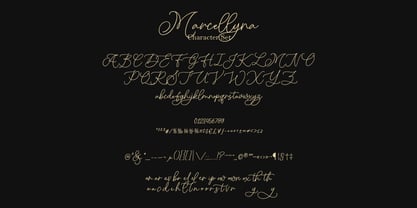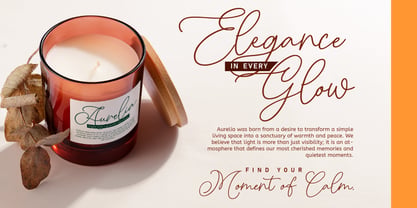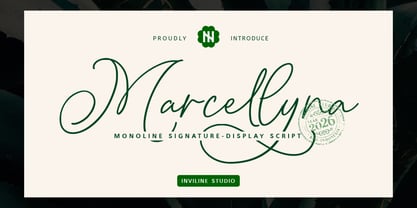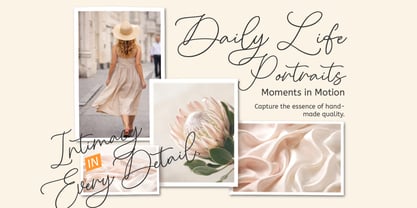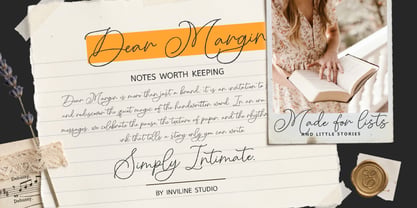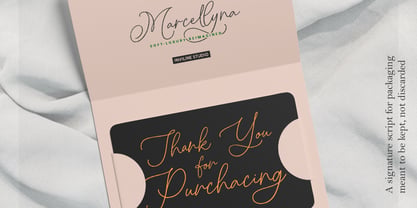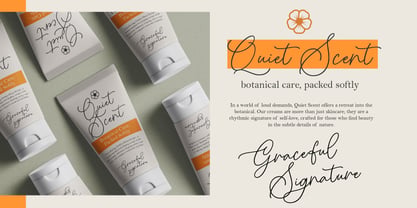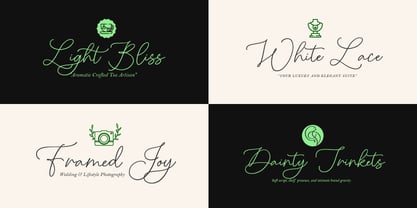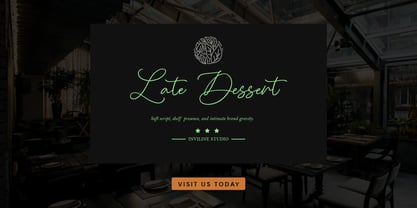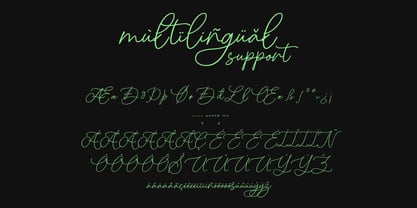
Marcellyna
by Inviline
The Marcellyna Font Family was designed by Virgiawan Listanto and published by Inviline. Marcellyna contains 1 styles. More about this family
Marcellyna marks a return to intimacy in branding. Designed by Inviline Studio, this monoline signature-display script was born from the philosophy that soft-luxury begins when a design feels truly personal. Its consistent weight and connected rhythm capture the essence of a handwritten note worth keeping.
In an era of "Neo-Humanist" design trends, Marcellyna offers a retreat into subtle organic curves and handmade quality. It features a sophisticated set of smart alternates and ligatures that allow for custom letterform combinations, ensuring no two words look exactly the same.
Best For:
• Luxury Editorial: Capturing "Elegance Glow" in headlines.
• High-End Packaging: Ideal for botanical care and artisanal lifestyle products.
• Intimate Branding: Portraits and lifestyle photography watermarks.
Marcellyna supports extensive Latin-based languages and provides a full character set including numbers and comprehensive punctuation.